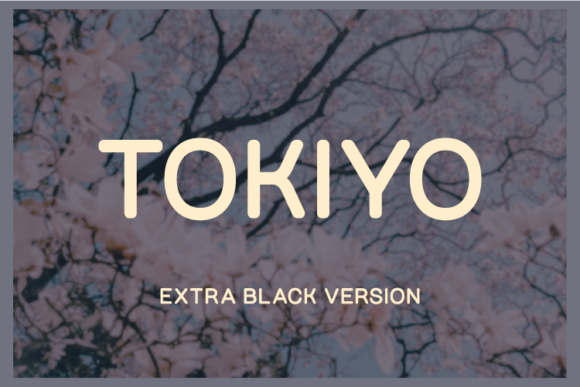
Journey to the Core of Elegance with Tokiyo Extra Black: A Symphony of Style and Precision
In the realm of digital typography, Tokiyo Extra Black emerges as a dazzling sans serif font, drawing inspiration from the rich tapestry of Japanese design. A masterpiece crafted by the visionary, A Christie, Tokiyo Extra Black embodies a harmonious fusion of beauty and elegance, culminating in a typeface of unparalleled distinction.
With its meticulously engineered curves and clean, crisp lines, Tokiyo Extra Black exudes an air of sophistication that commands attention. Each character, meticulously honed to perfection, reflects a deep understanding of form and function, resulting in a font that not only pleases the eye but also enhances the readability of your digital creations.
Whether you're a seasoned designer seeking to elevate your projects or a budding entrepreneur looking to make a lasting impression, Tokiyo Extra Black stands as your steadfast companion. Its versatility shines across a wide spectrum of applications, from captivating logos and branding elements to eye-catching headlines and informative body text.
Embrace the allure of Tokiyo Extra Black and watch as your designs transform into captivating works of art. Its inherent elegance adds a touch of refinement to any project, while its unwavering clarity ensures that your message is conveyed with crystal clarity.
Immerse yourself in the world of Tokiyo Extra Black, where Japanese design aesthetics meet contemporary digital artistry. Discover the boundless possibilities that await you as you harness the power of this extraordinary font.